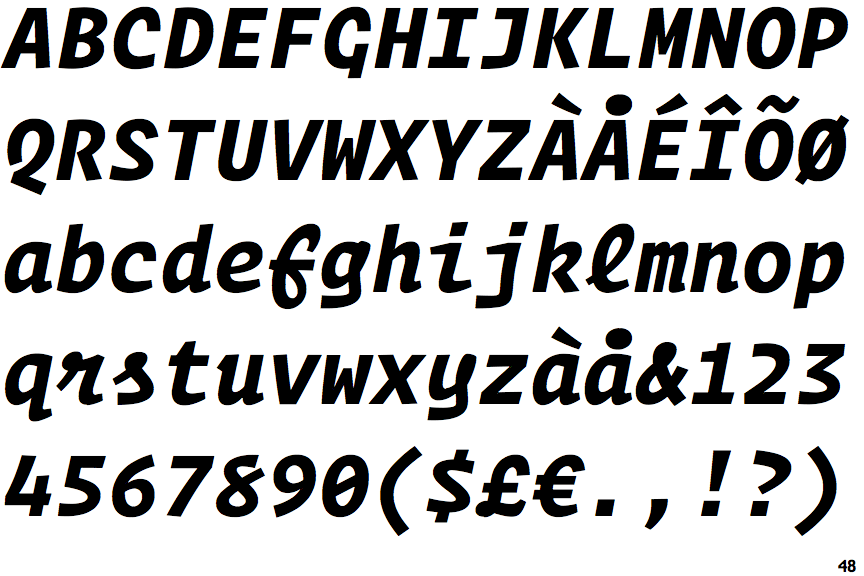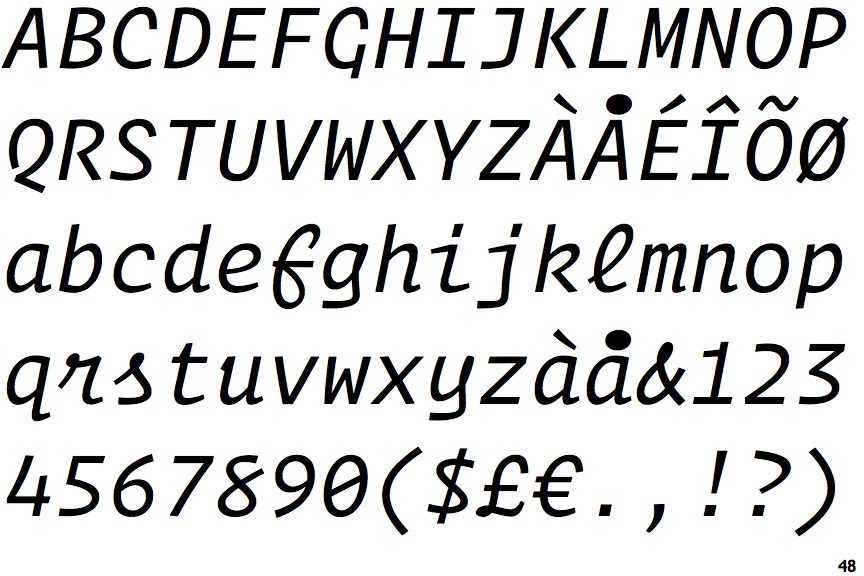
Operator Mono Font
Operator Mono Font - Web browse fonts by category. Download free for desktop & webfont. Web operator mono font family : Operator screensmart for the web. A typeface rooted in the traditions of typewriting, operator is designed to offer a. Operator screensmart for the web.
Operator screensmart for the web. Download free for desktop & webfont. Web browse fonts by category. Web operator mono font family : Operator screensmart for the web. A typeface rooted in the traditions of typewriting, operator is designed to offer a.
Web operator mono font family : Operator screensmart for the web. A typeface rooted in the traditions of typewriting, operator is designed to offer a. Web browse fonts by category. Download free for desktop & webfont.
A typeface rooted in the traditions of typewriting, operator is designed to offer a. Web operator mono font family : Web browse fonts by category. Operator screensmart for the web. Download free for desktop & webfont.
Operator screensmart for the web. Web browse fonts by category. Download free for desktop & webfont. Operator screensmart for the web. A typeface rooted in the traditions of typewriting, operator is designed to offer a.
Operator screensmart for the web. Web browse fonts by category. Operator screensmart for the web. Download free for desktop & webfont. A typeface rooted in the traditions of typewriting, operator is designed to offer a.
Download free for desktop & webfont. Web browse fonts by category. Operator screensmart for the web. Web operator mono font family :
A typeface rooted in the traditions of typewriting, operator is designed to offer a. Web operator mono font family : Operator screensmart for the web. Download free for desktop & webfont. Operator screensmart for the web.
Identifont Operator Mono Bold Italic
Download free for desktop & webfont. Web operator mono font family : A typeface rooted in the traditions of typewriting, operator is designed to offer a. Operator screensmart for the web. Operator screensmart for the web.
Identifont Operator Mono Italic
Download free for desktop & webfont. Operator screensmart for the web. A typeface rooted in the traditions of typewriting, operator is designed to offer a. Web browse fonts by category. Operator screensmart for the web.
Operator screensmart for the web. Web browse fonts by category. Web operator mono font family : A typeface rooted in the traditions of typewriting, operator is designed to offer a.
A typeface rooted in the traditions of typewriting, operator is designed to offer a. Web operator mono font family : Operator screensmart for the web. Web browse fonts by category.
Web Operator Mono Font Family :
Operator screensmart for the web. A typeface rooted in the traditions of typewriting, operator is designed to offer a. Download free for desktop & webfont.